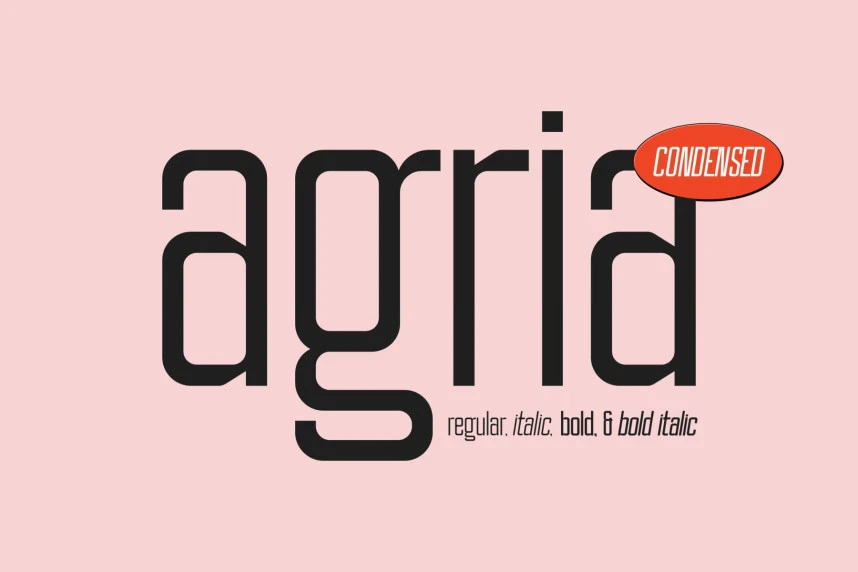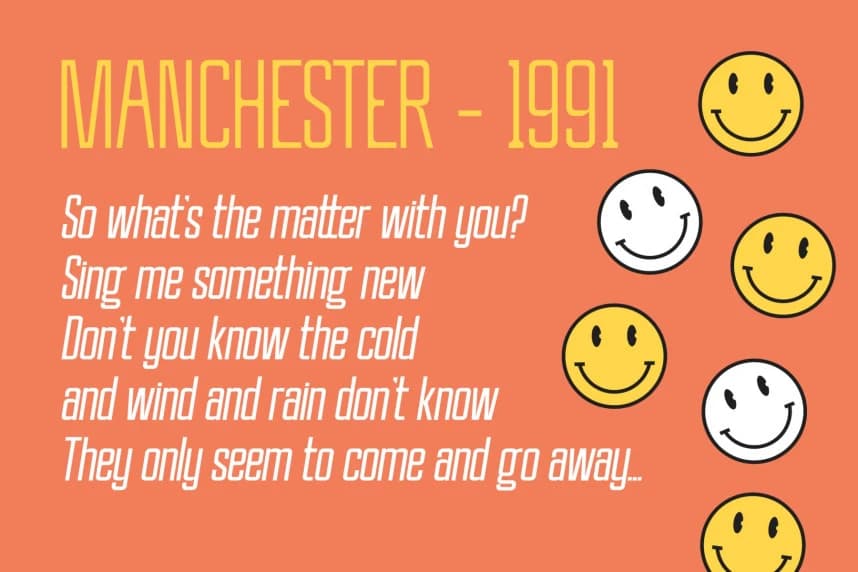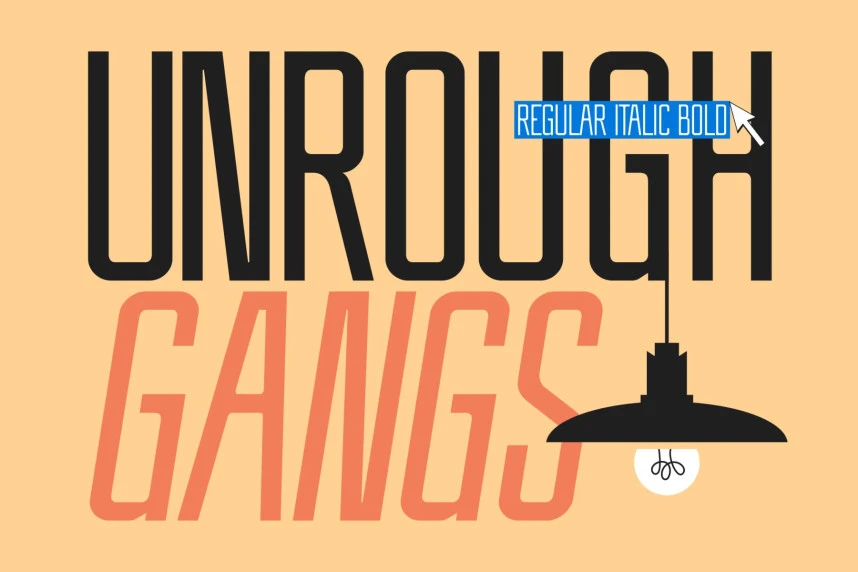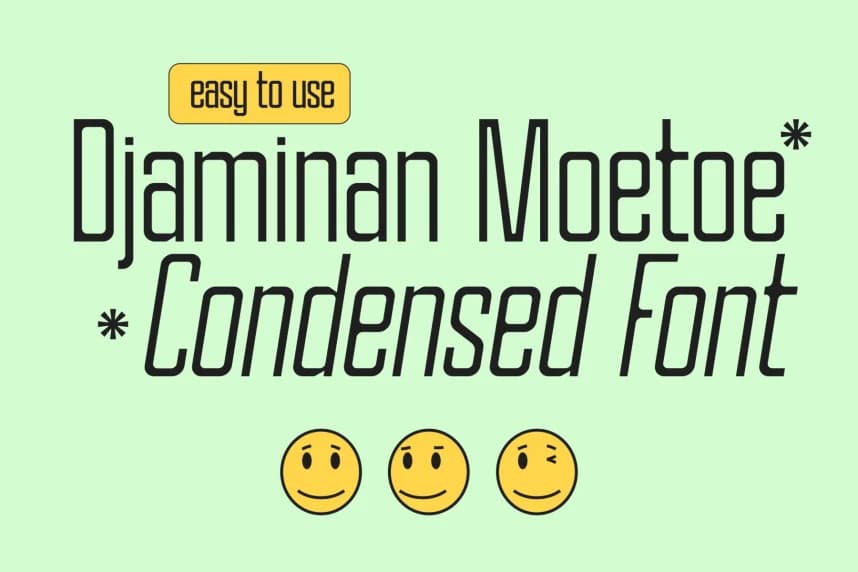
Agria Font
Agira Font is a condensed sans serif font designed to be more special so that it brings out a more unique side to your designs. This font consists of Regular, Italic, Bold, and Bold Italic fonts, supports languages, complete with alternates and ligatures